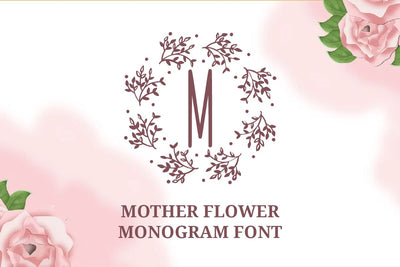
Mother Flower Monogram - Decorative Font
Introducing the Mother Flower Monogram font, which is a decorative monogram style font decorated with a romantic floral wreath circle frame. This font can enhance your creative projects such as logos, bridal, invitations, branding, crafts, stickers, labels, earrings, key chains, engagement, decorations, and many other creative ideas.